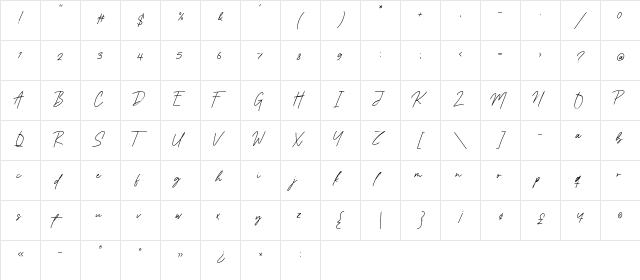
Kampsite Regular
Design Context for Kampsite Typeface
Kampsite is a composed and adaptable typeface that performs quietly and consistently across a wide range of design contexts.